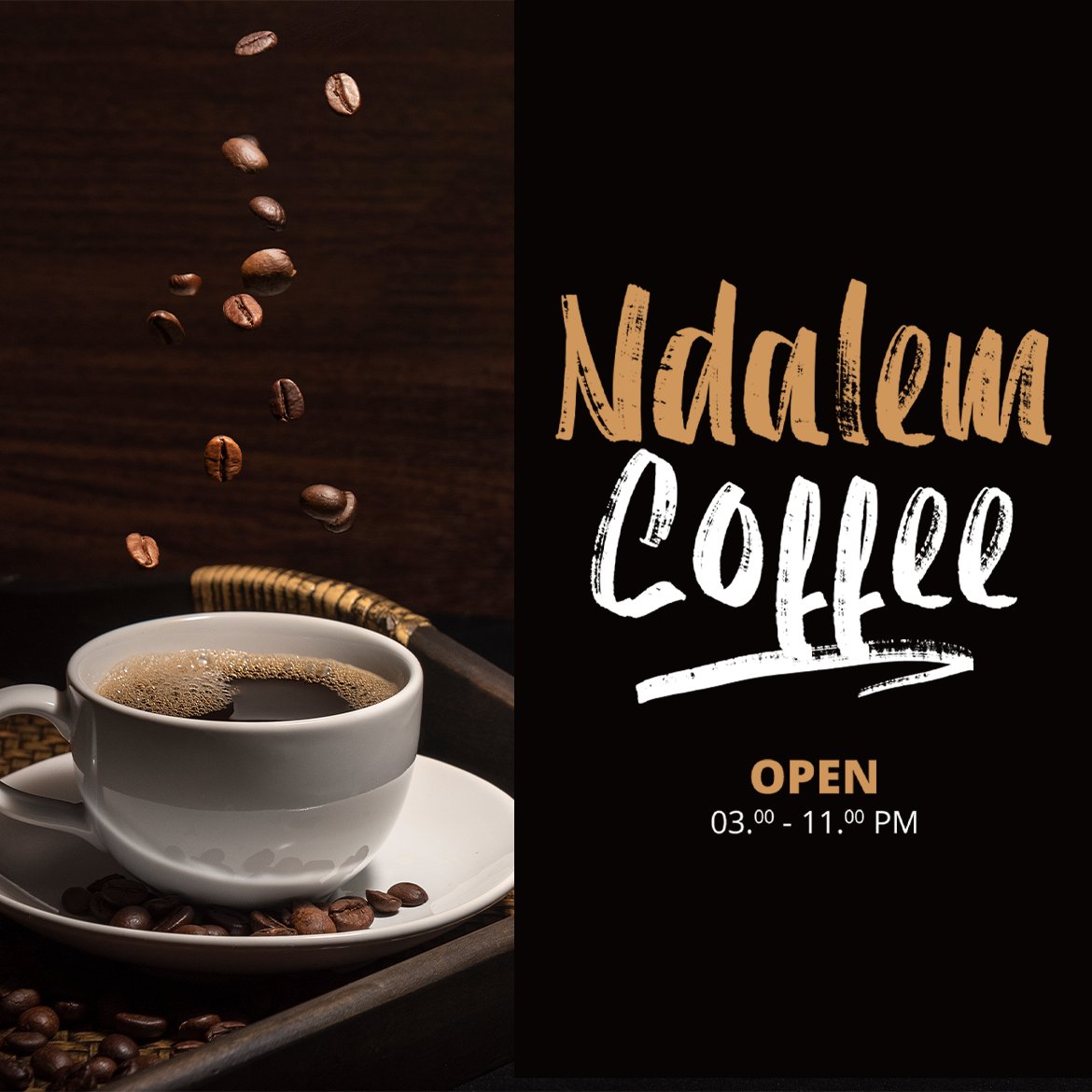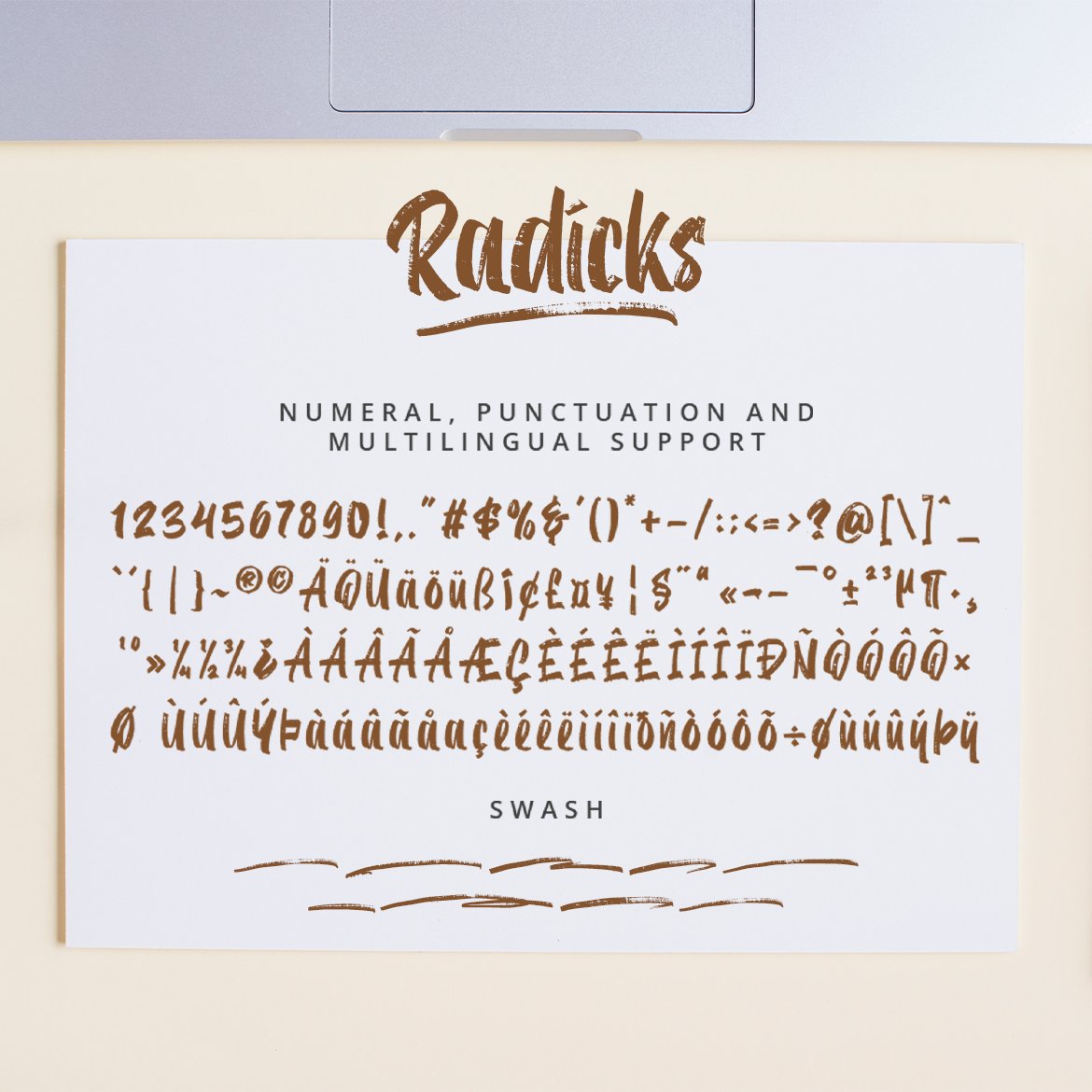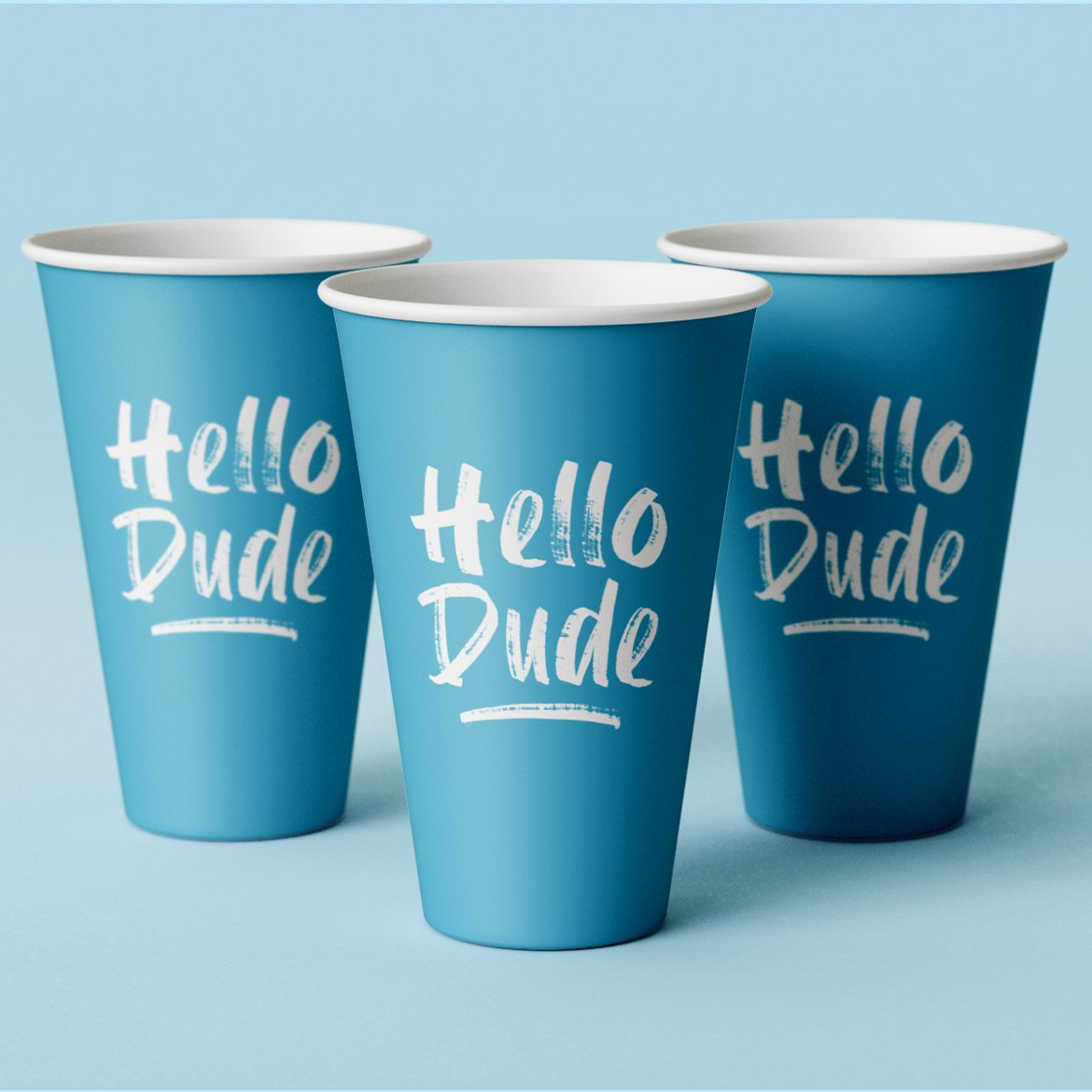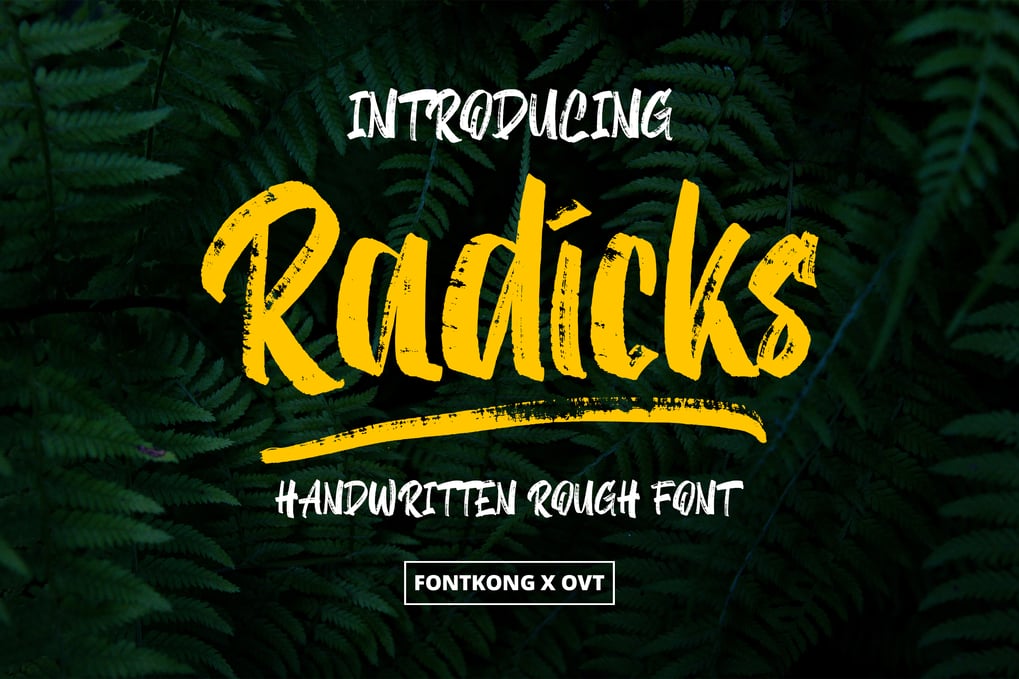
Radicks – Handwritten Rough Font
Introducing “Radicks,” a handwritten rough font designed to bring a bold, edgy feel to your designs. With its raw, unpolished strokes, Radicks captures the essence of hand-crafted lettering, making it perfect for projects that require a touch of rugged authenticity.